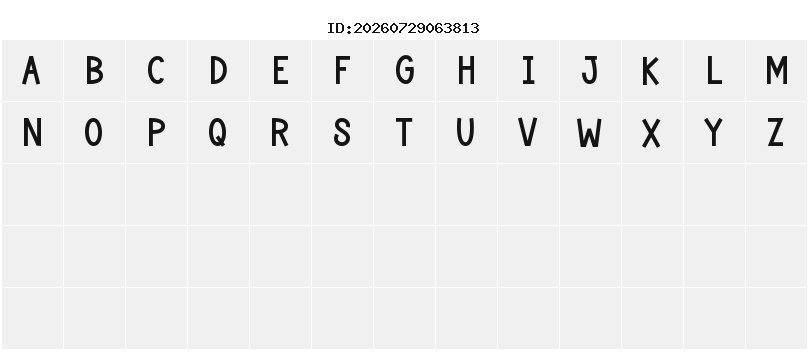
JL Quixs Preview
• Font Name: JL Quixs
• Full Font Name: JL Quixs
• Version: Version 1.00, April 27, 2006, initial release
About JL Quixs.ttf
JL Quixs.ttf is a modern, elegant sans-serif font designed for ultimate readability and visual harmony. Perfect for branding, headlines, web design, and print materials.